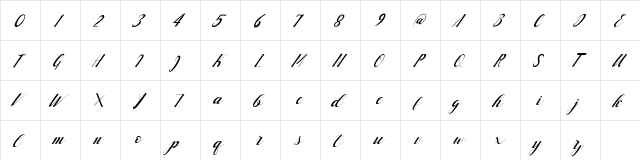
handlove Regular
handlove flows with the natural rhythm of handwritten lettering, making it ideal for designs that call for warmth and personal expression.
Font Pairing: Combine handlove with a simple geometric sans for maximum contrast — the tension between flowing curves and clean structure is a classic typographic pairing.
Pro Tip: Pair handlove with a clean sans-serif for supporting text. The contrast between fluid script and geometric structure creates an elegant typographic hierarchy.